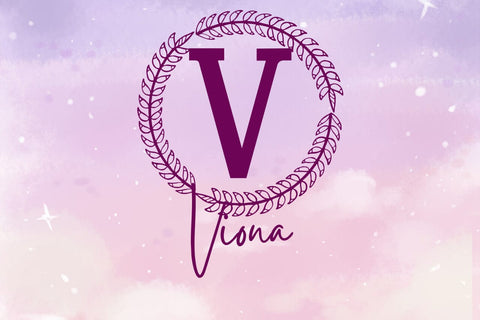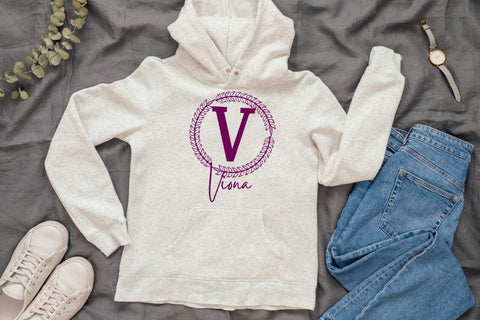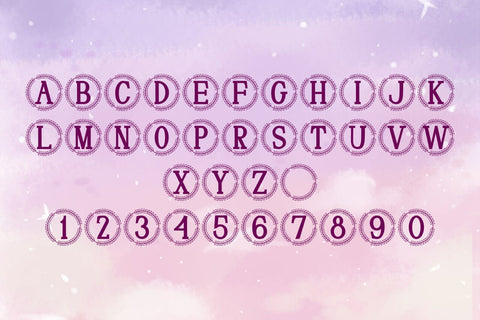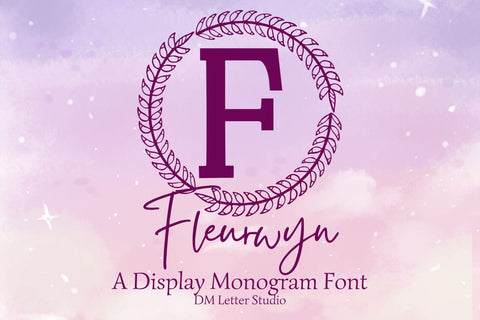
Fleurwyn Monogram Font
Meet Fleurwyn, the Monogram Font
Fleurwyn Monogram Font turns initials into graceful botanical emblems. Lines feel smooth and balanced. Leafy flourishes add a soft accent without hurting clarity. Because counters stay open, tiny tags and foil seals still read clean. Use it for wedding suites, boutique logos, keepsake gifts, and premium packaging. Moreover, Fleurwyn pairs beautifully with modern serifs and quiet sans fonts, so layouts look refined with little effort.
Where the monogram font shines
Set single, double, or triple initials for logos, seals, menus, and place cards. Then frame them with laurel rings, oval borders, or fine rules to echo the floral rhythm. Since proportions favor symmetry, polished compositions come together in minutes. As a result, your thumbnails stand out and listings stay consistent across products. Plus, Fleurwyn scales smoothly from jewelry cards to venue signage.
Fast setup, polished results
Design tips for Fleurwyn Monogram
Keep initials large and let white space breathe. Pair the headline monogram with a soft serif or humanist sans for supporting text. Meanwhile, add micro shadows, a thin inner stroke, or a delicate frame for depth. Because the structure is airy, textured paper and metallic accents raise perceived value. However, keep copy short so the monogram remains the hero.
Select stylistic alternates for key letters
Curves tuned for foil, letterpress, engraving, laser, and clean vinyl cutting